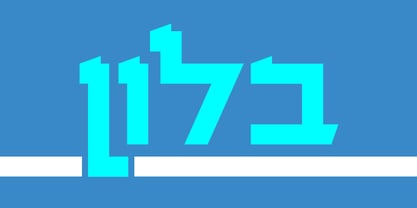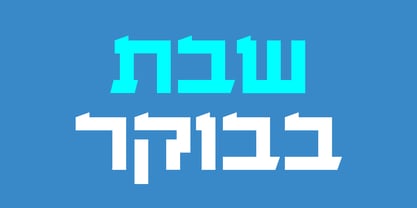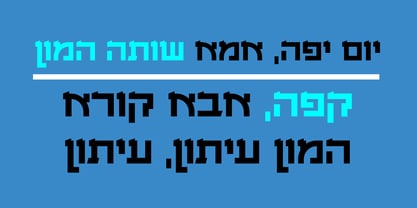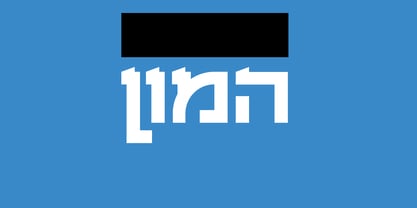
Azmaout
by Masterfont
The Azmaout Font Family was designed by Zvika Rosenberg and published by Masterfont. Azmaout contains 1 styles. More about this family
These letter forms were found on a hand carved monument in Tel Aviv, next to the place where the declaration of independence took place.